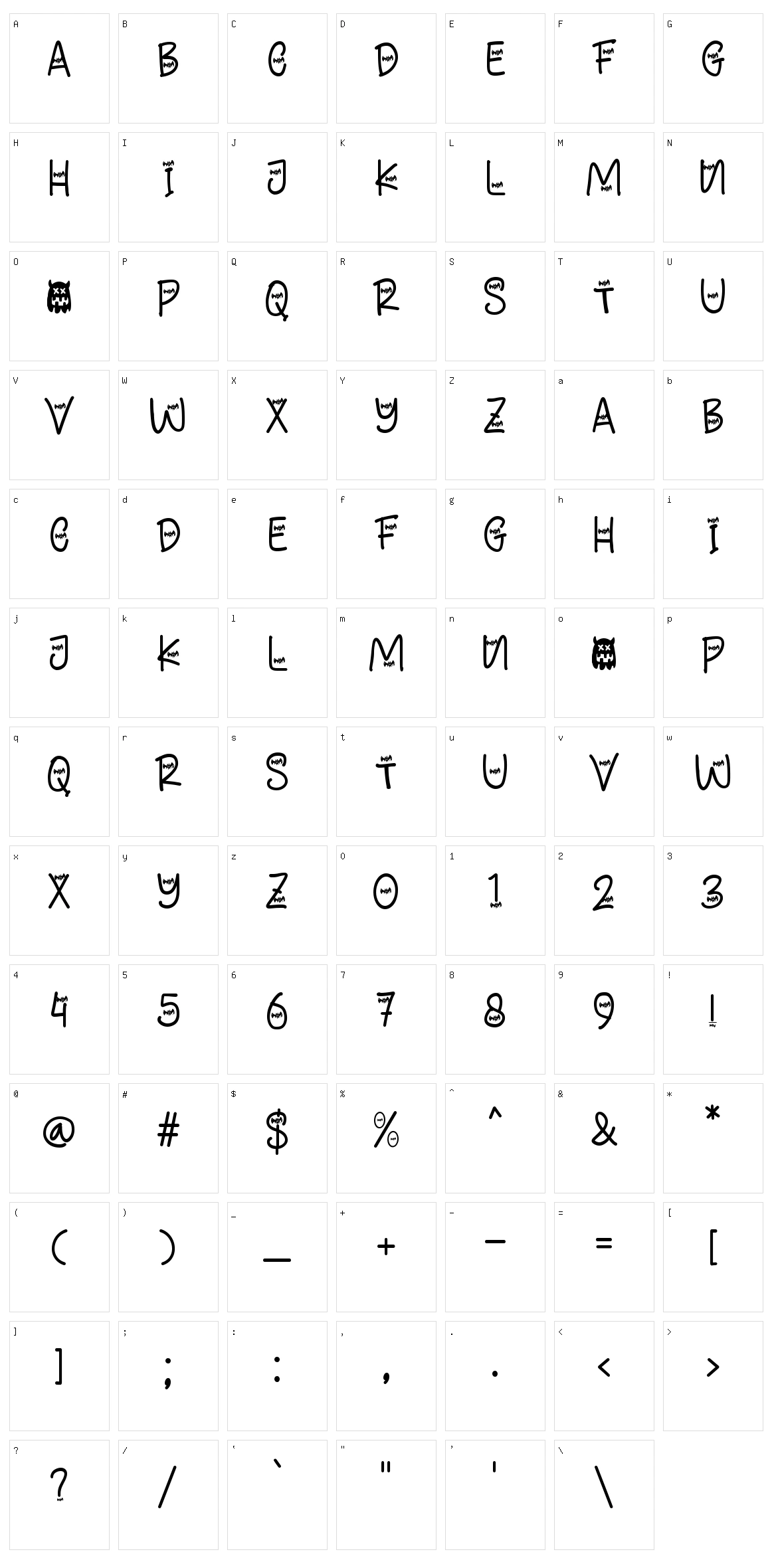
The free font Bat Ghost is carefully designed by Letterafa Studio, showcasing a thoughtful balance of creativity and usability and falls under the Halloween font style. When you download the ZIP file, it contains only 291.07 KB of font files, making it lightweight and quick to download. Please review the license details below to understand permitted usage and distribution rights. If license information is not available, we recommend using this font for personal projects only or contacting the author directly for commercial usage permissions.